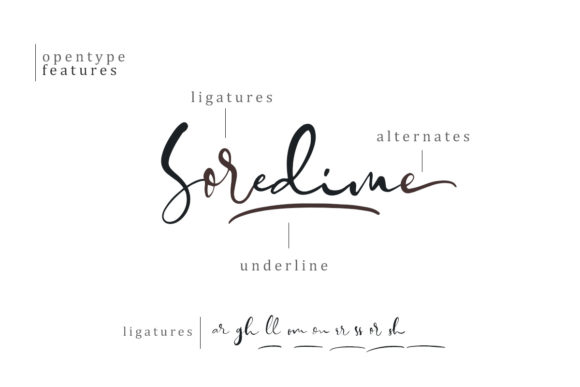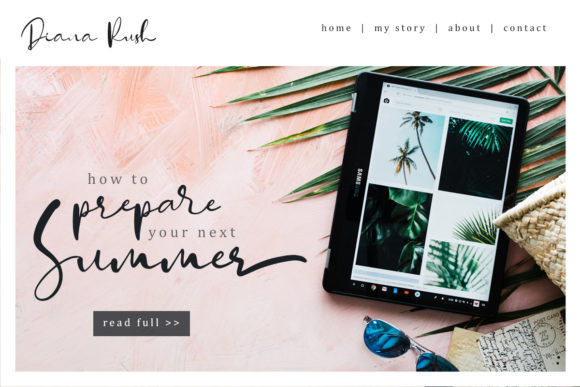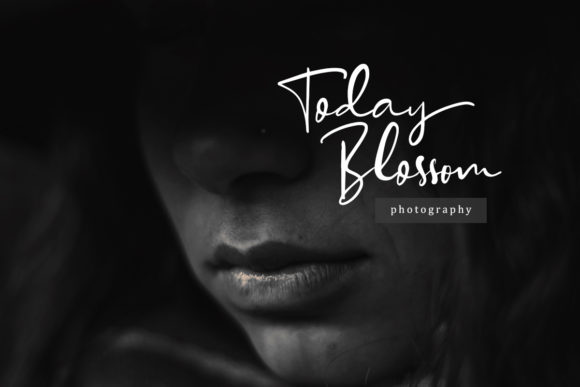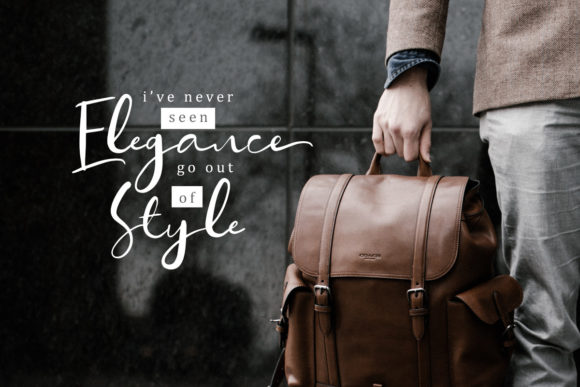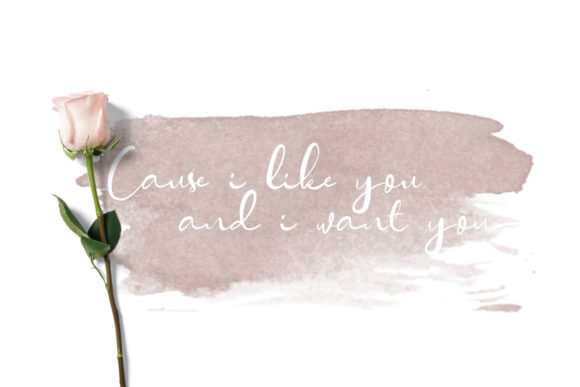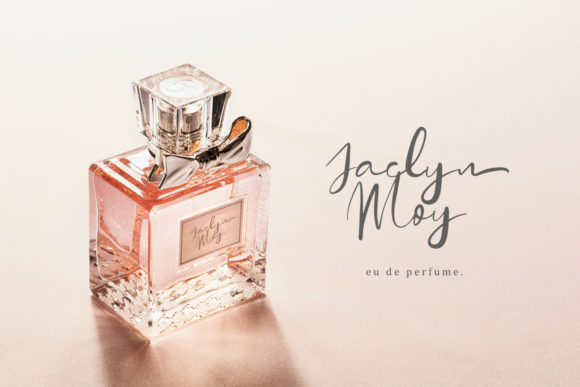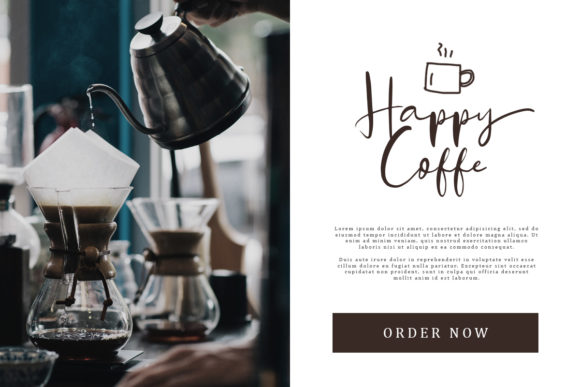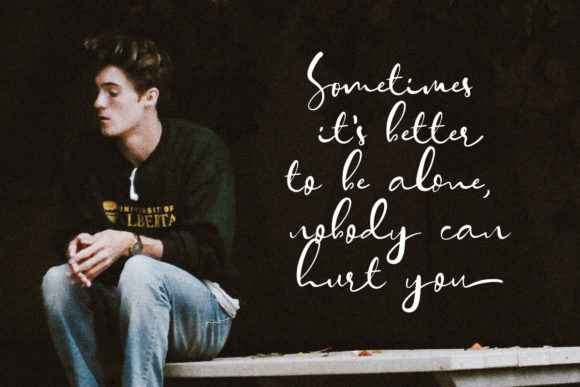
Soredime Font
About Soredime Font
The Soredime is an elegant script font. It’s perfect for logos, branding, wedding invitations, quotes, clothing, and much more!